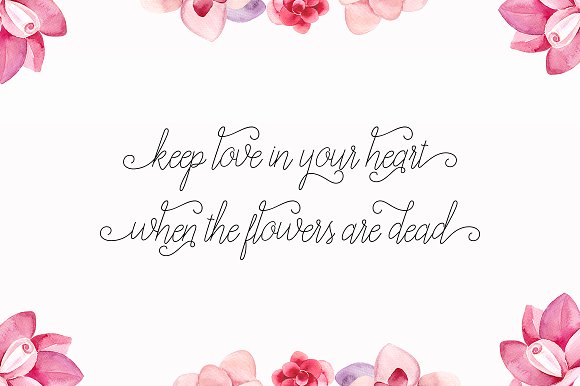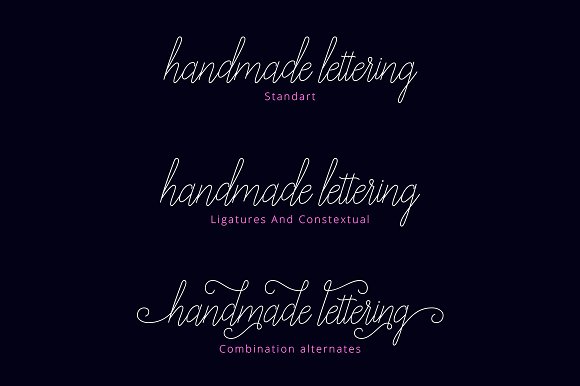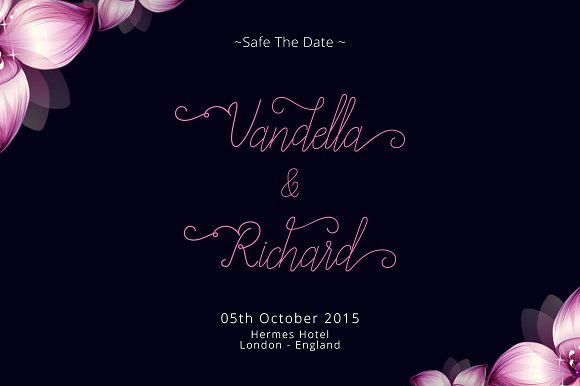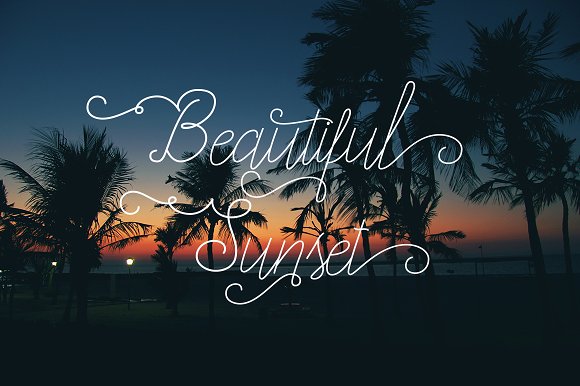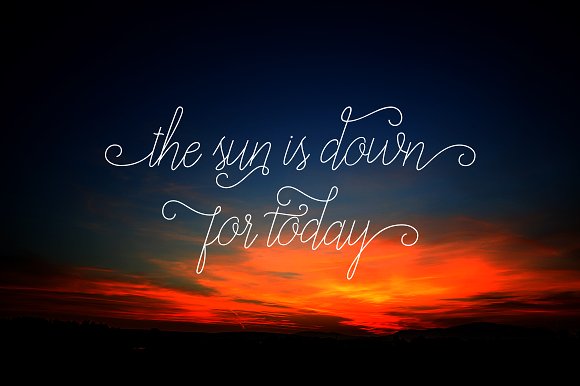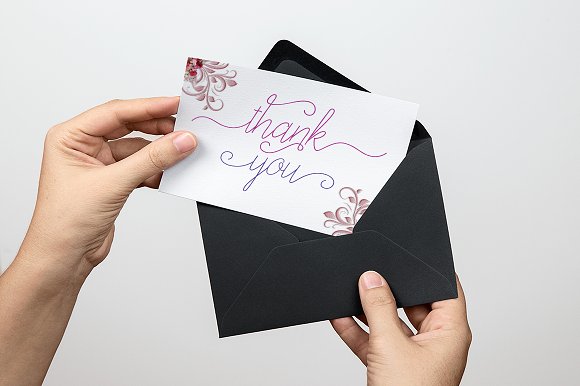
When Words Get a Little Bouncy
We’ve all been there – staring at a blank page, trying to find the perfect font to bring our design to life. The search is over, and we’re excited to introduce you to the Allexandrea Font, a stunning monoline font that adds a touch of whimsy to any project.
This beautiful font features an irregular baseline, giving it a bouncy flow that’s sure to captivate your audience. Whether you’re designing a logo, brochure, or social media graphics, Allexandrea Font is the perfect choice to add some visual interest and personality to your work.
As designers, we’re always on the lookout for unique and versatile fonts that can elevate our designs. Allexandrea Font is a valuable addition to any design library, offering a fresh and modern look that’s sure to inspire creativity and innovation.
- Unique Characteristics: Elegant, sophisticated script font with high-end feel; ideal for invitations, wedding stationery, and luxury branding
- Font Style: Script, Calligraphy
At first glance, the Allexandrea font catches the eye with its elegant and sophisticated design. The combination of script and serif elements creates a unique and eye-catching visual effect.
- ✨ Unique and stylish design: Allexandrea font is perfect for adding a touch of sophistication to your branding, logo, or typography.
- ✨ Versatile: This font can be used in various contexts, from formal invitations to casual greeting cards.
- ✨ High-quality digital font: The Allexandrea font is well-rendered and scalable, making it suitable for a range of applications.
- ⚠️ Limited font styles: The Allexandrea font is available in a single weight, which may not provide enough flexibility for complex typography projects.
- ⚠️ Potential legibility issues: The unique design of the Allexandrea font may not be suitable for very small text sizes, potentially affecting readability.
Overall, the Allexandrea font is a stylish and versatile choice for designers looking to add a touch of elegance to their work. While it may not be suitable for every project, it’s a great option for those seeking a unique and sophisticated design.
Use Allexandrea Font for titles, headings, and other prominent text elements to add a touch of elegance and sophistication to your design.
Pair Allexandrea Font with other elegant fonts or sans-serif fonts to create a visually appealing contrast.
Experiment with different font sizes and colors to create a unique look and feel for your design.
Allexandrea Font is ideal for:
Business cards and letterheads
Restaurant menus and signage
Magazine and newspaper headlines
What is the recommended font size and line height for optimal readability with the Allexandrea Font?
For optimal readability, we recommend using a font size between 12 and 14 points, with a line height of at least 1.5 times the font size. This will ensure clear and easy-to-read text, making it perfect for body copy, headings, and titles.